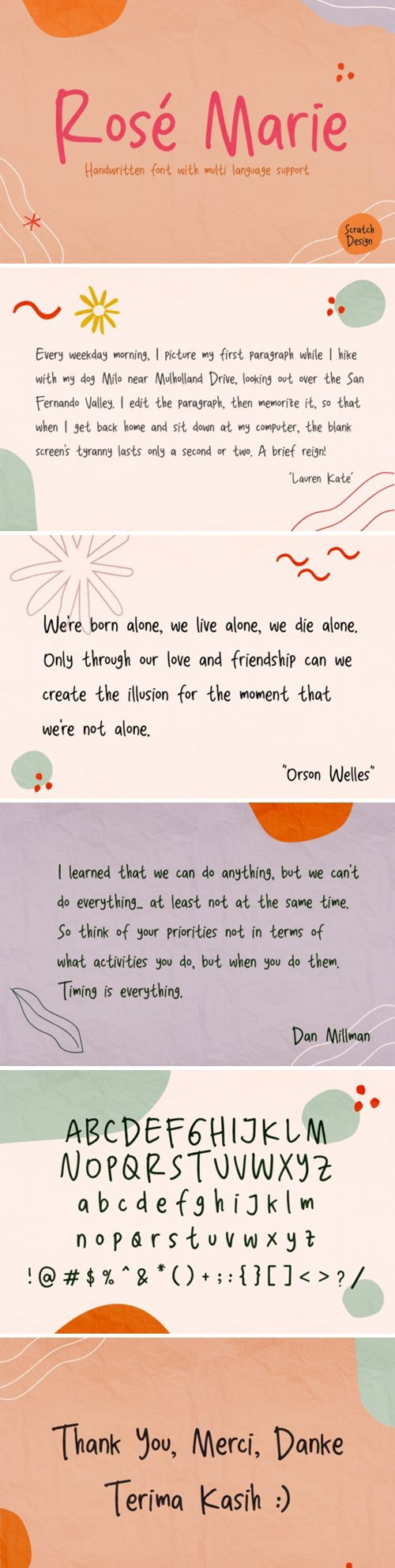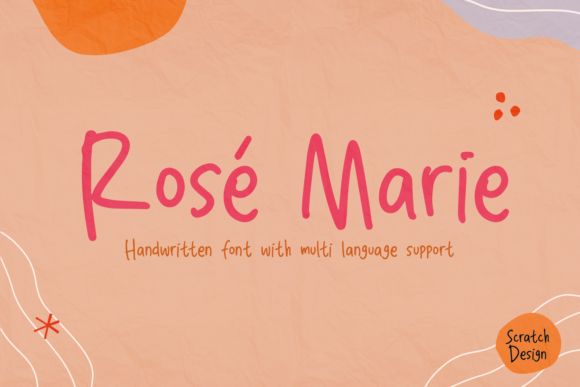
Rose Marie is an elegant and dainty handwritten font that features sweet and delicate swashes. This original look will appeal to a wide range of crafty ideas, from letterheads and titles, to stationery.